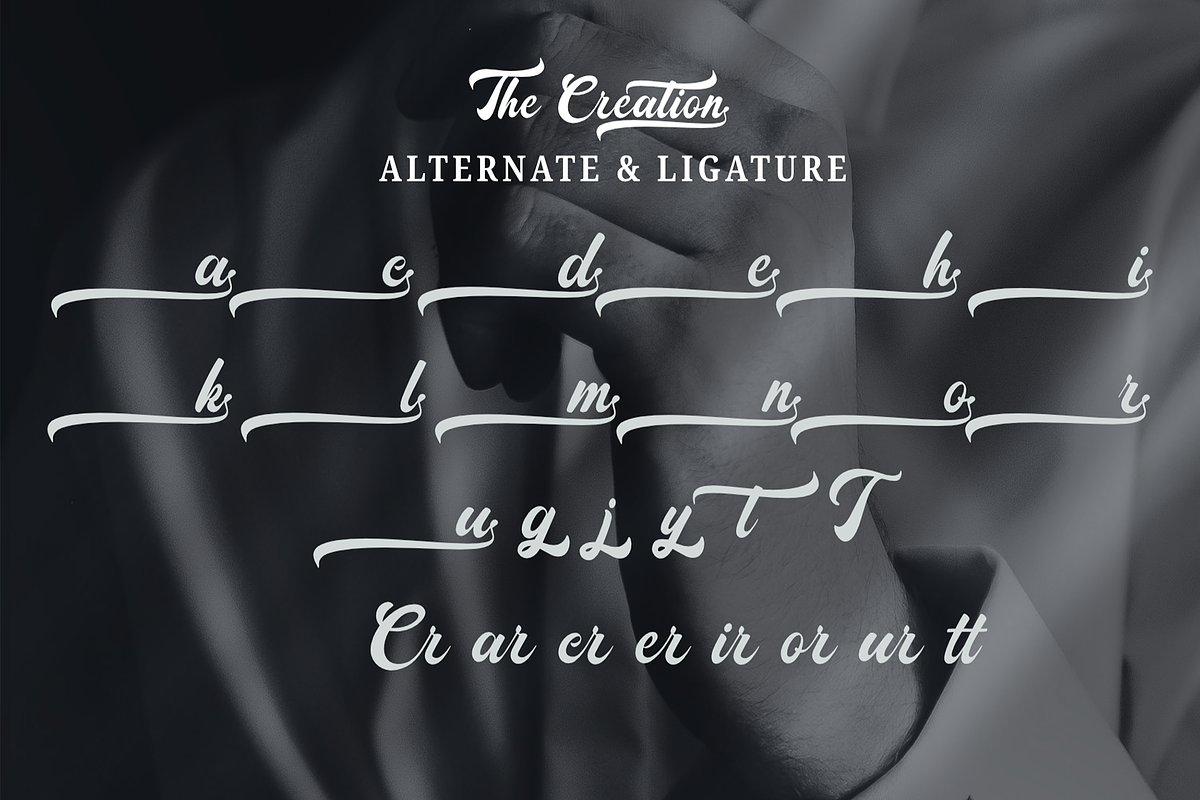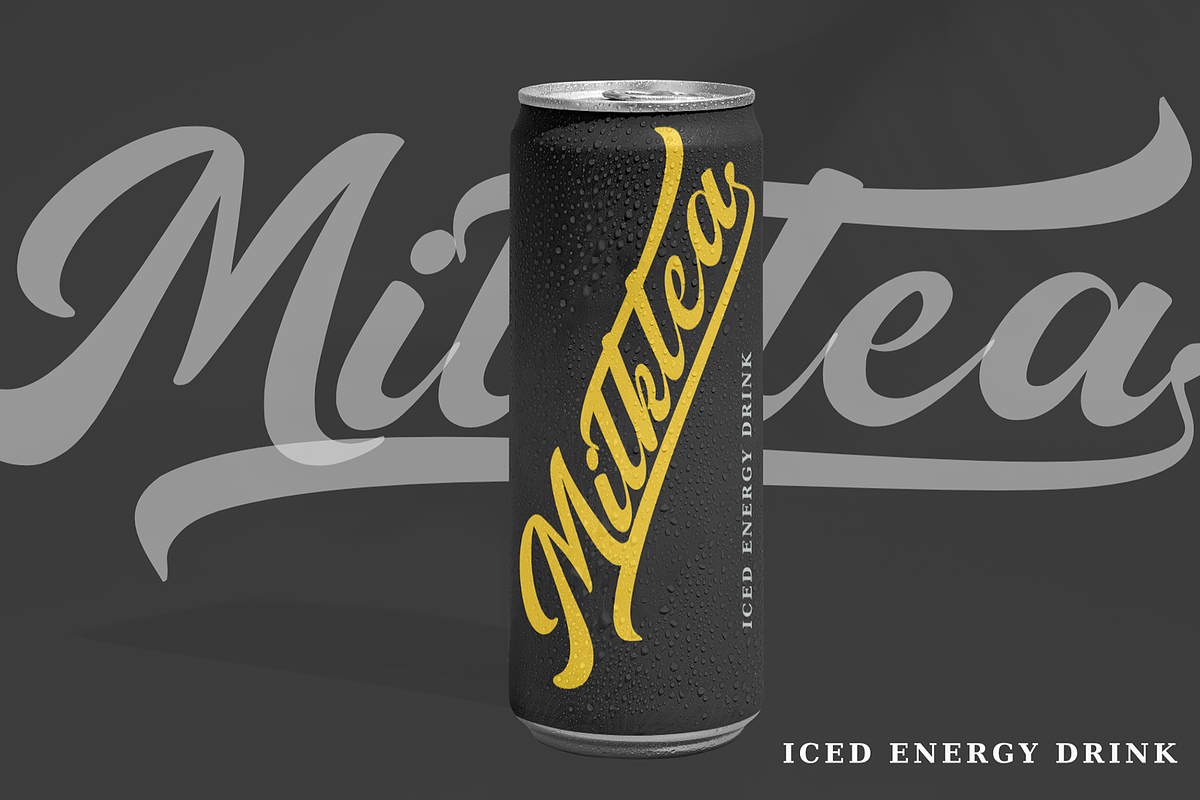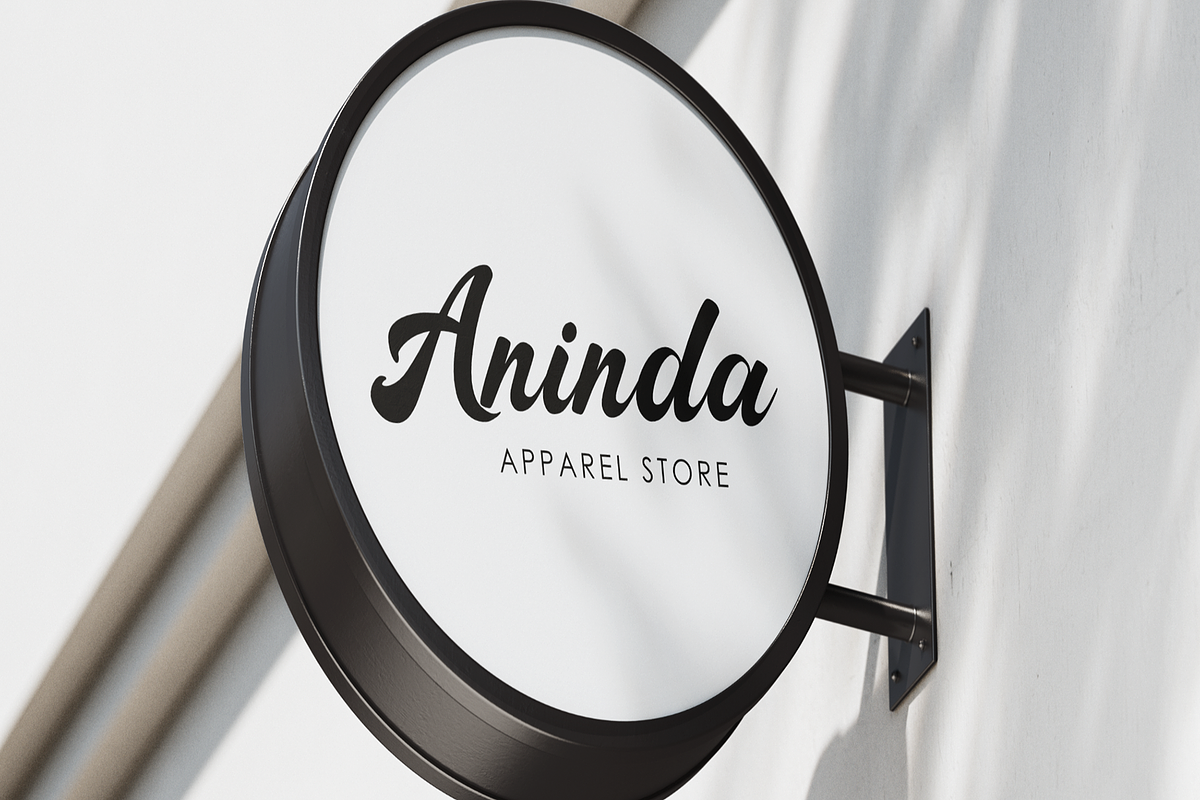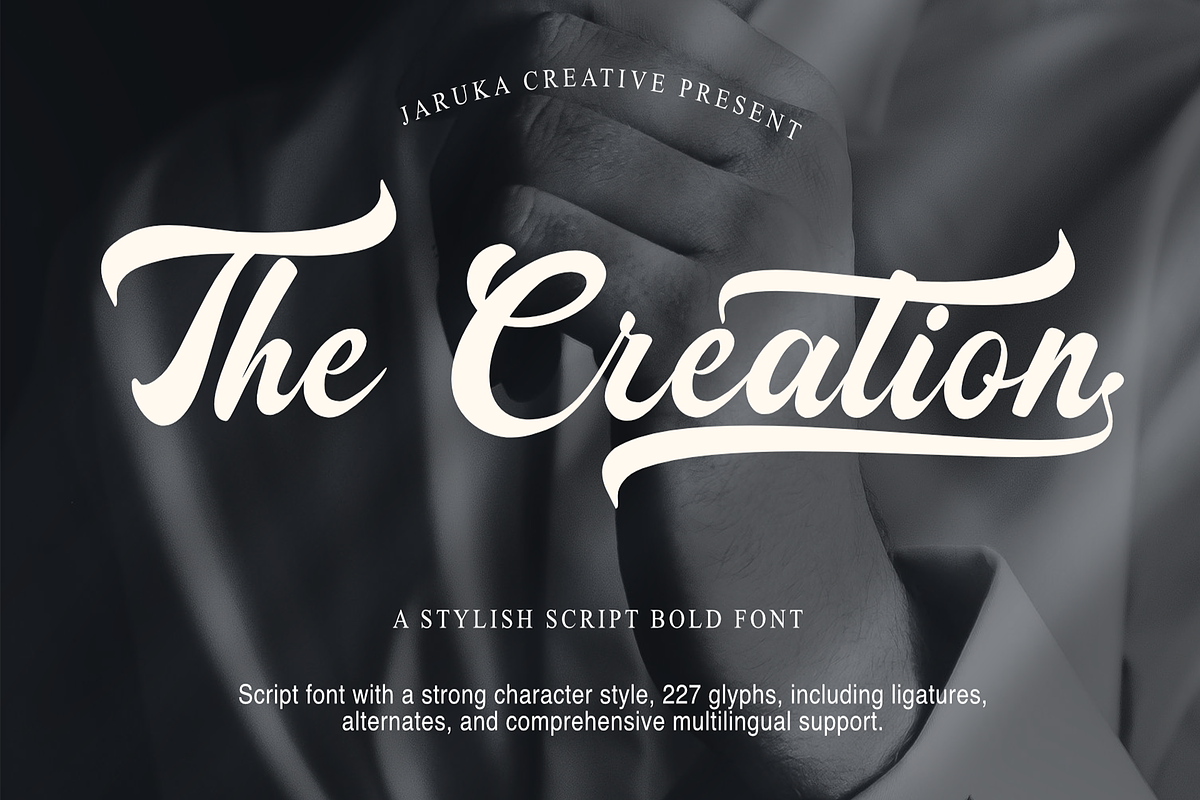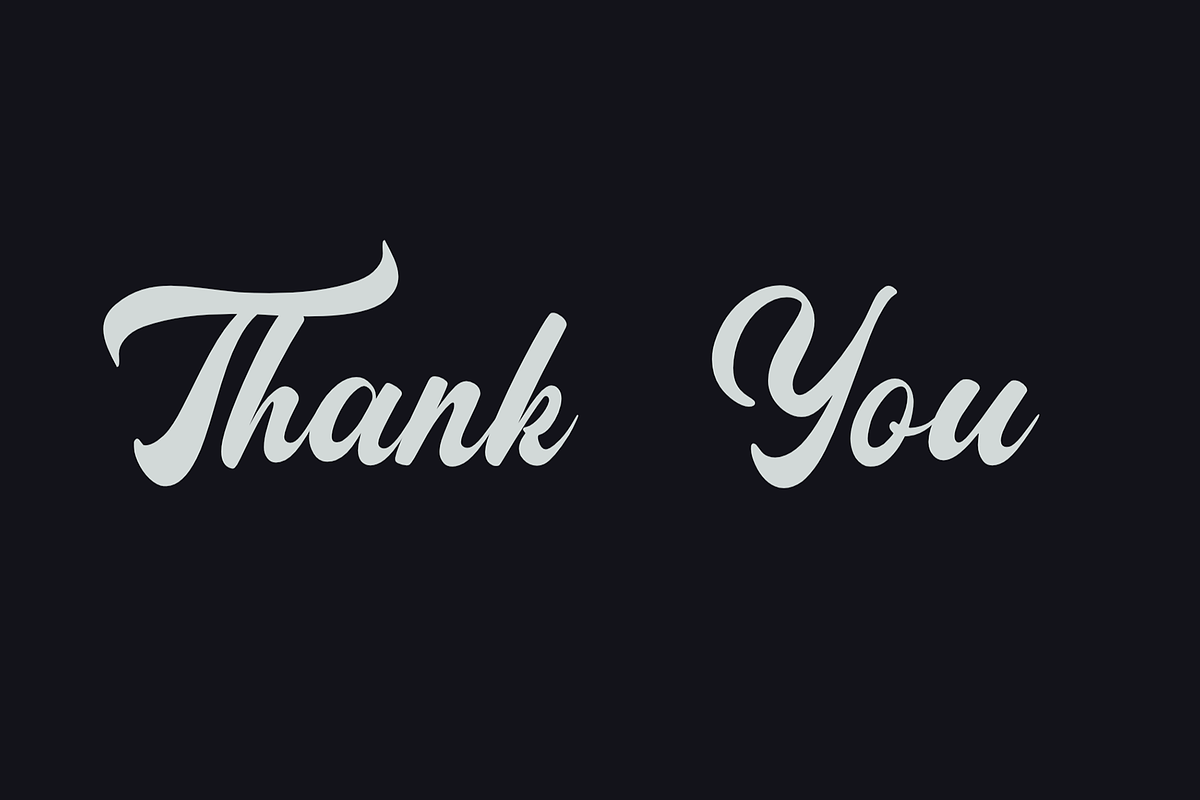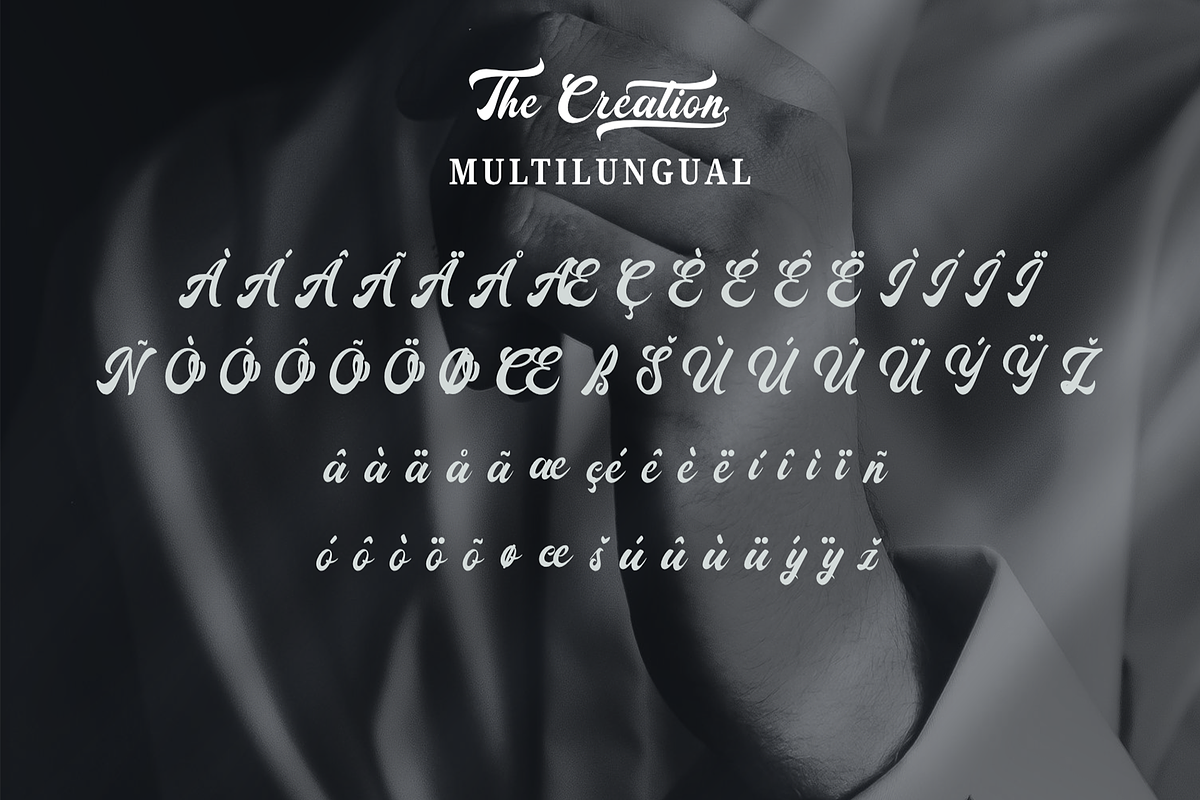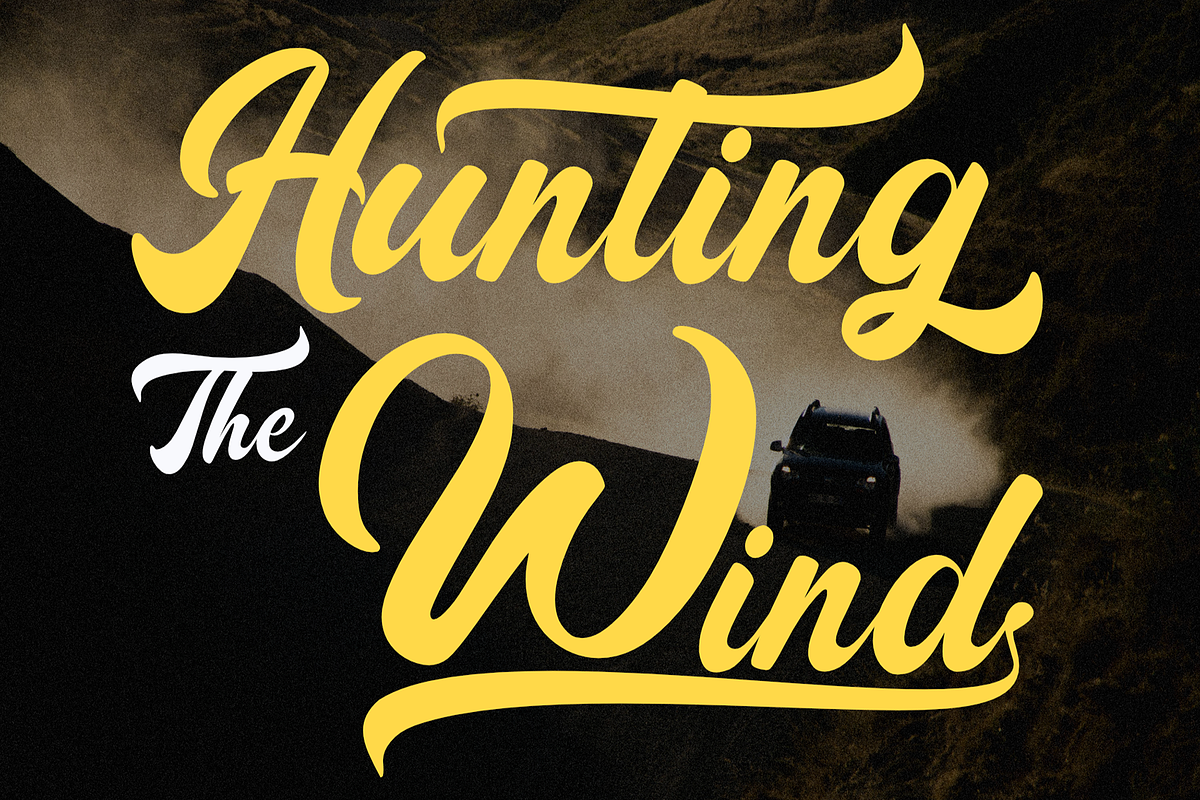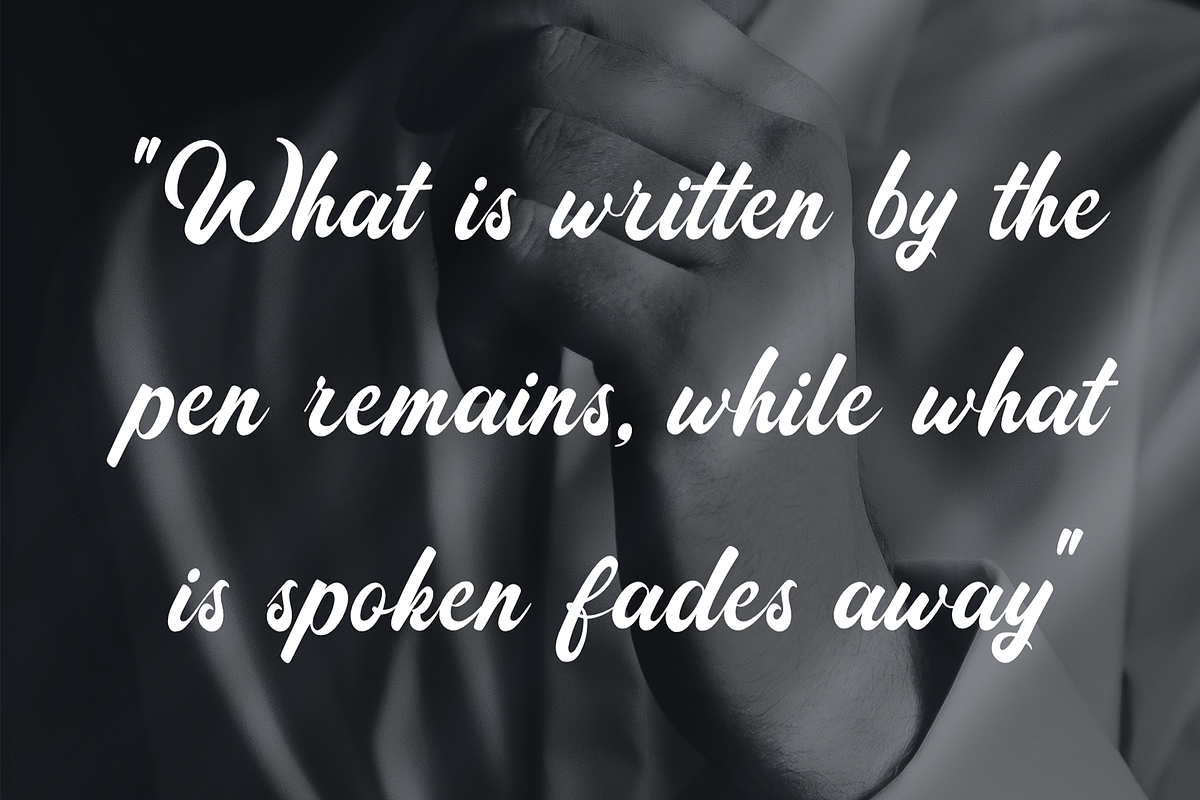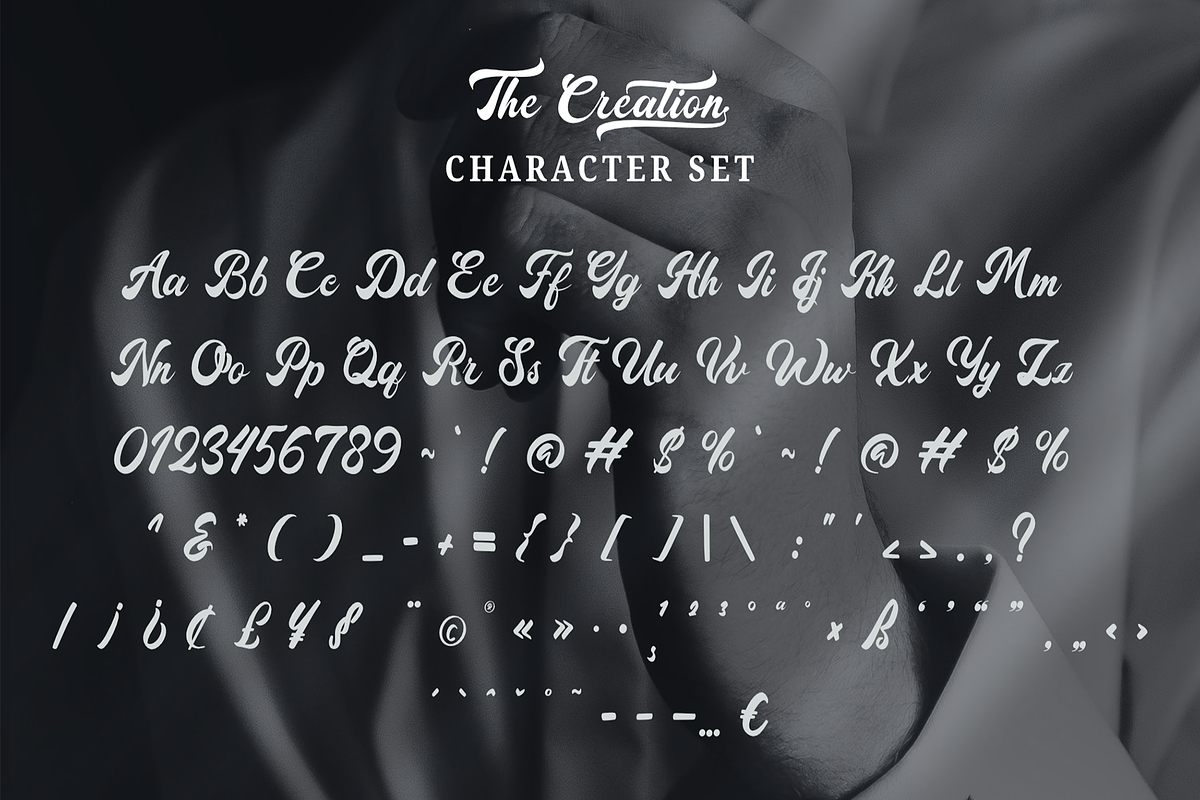
The Creation Script Bold Font
The Creation Stylish Script Bold Font
The Creation font is a bold script font with a unique, elegant, and geometric style. It is a modern script font perfect for branding projects, logos, social media posts, product packaging, labels, etc.